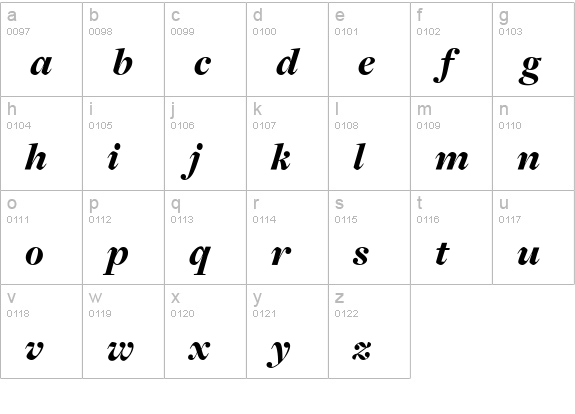
FreightDispBlackItalic Font Details
FreightDispBlackItalic is a bold and impactful font that exudes modernity and sophistication. Its sleek design and sharp angles make it perfect for adding a touch of elegance to any project. The italicized style adds a dynamic flair to the text, making it stand out from the crowd. Whether you're working on a poster, logo, or website, FreightDispBlackItalic will elevate your design to the next level. The best part? This stunning font is available for free download at FontsMarket.com. Don't miss out on this amazing opportunity to enhance your creative projects with FreightDispBlackItalic. Download it today and start creating beautiful designs that leave a lasting impression.